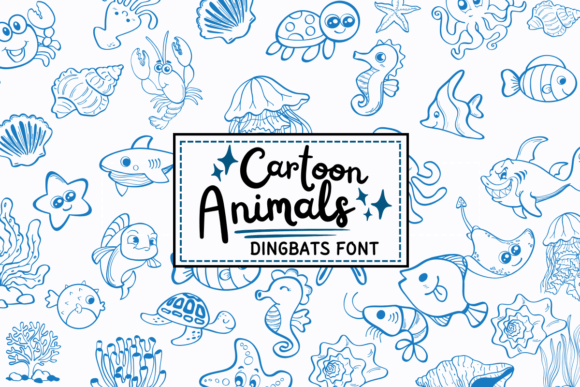
The Joy of Cartoon Animals Font: A Designer’s New Best Friend
I’ll never forget the time I was working on a children’s party invitation project, and my client asked for a font that would make the kids go wild. I scoured the internet, tried out a dozen fonts, but nothing seemed quite right. That was until I stumbled upon the Cartoon Animals font. It was like a breath of fresh air – a fun, playful dingbat font that replaced each letter with a different adorable animal character. It was perfect! In this article, I’ll share my experience with Cartoon Animals font, its features, and how to make the most of it in your designs.
- ✨ Unique and playful animal characters for each letter
- ✅ Easy to add a touch of whimsy to any project
- 🎉 Perfect for kids’ invitations, educational materials, and creative designs
- 👍 Highly legible, even at smaller font sizes
While Cartoon Animals font is amazing, there are a few things to keep in mind:
- ⚠️ Limited use in formal or professional designs (unless you’re going for a playful twist)
- 🤔 May not work well in large blocks of text (it’s best used for headings or titles)
One of the best things about Cartoon Animals font is its OpenType features and glyphs. These allow you to customize your text and make it even more unique:
- Access stylistic alternates to swap out characters
- Use glyphs to add special characters or icons
- Experiment with different ligatures and swashes
The Story Behind Cartoon Animals Font
The designer behind Cartoon Animals font was inspired by their own childhood love of animals and cartoons. They wanted to create a font that would bring a smile to people’s faces and add a touch of playfulness to any design. With Cartoon Animals font, you can do just that – add a dash of fun and whimsy to your projects.